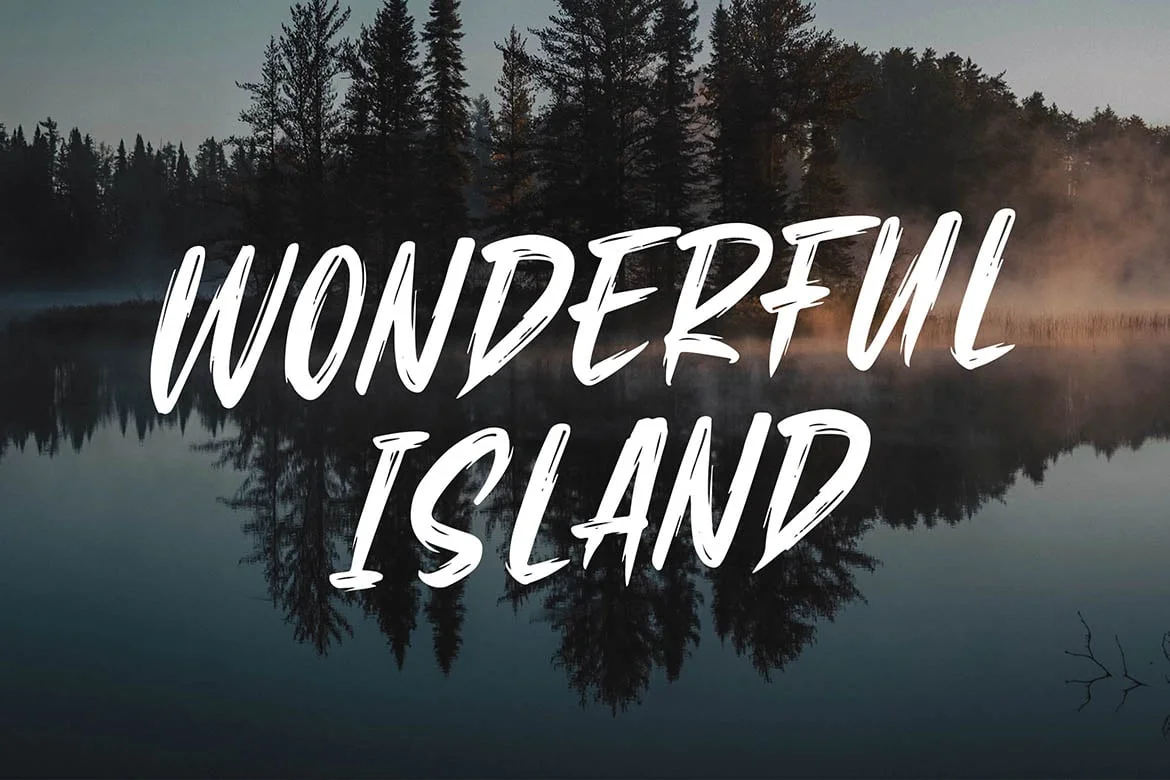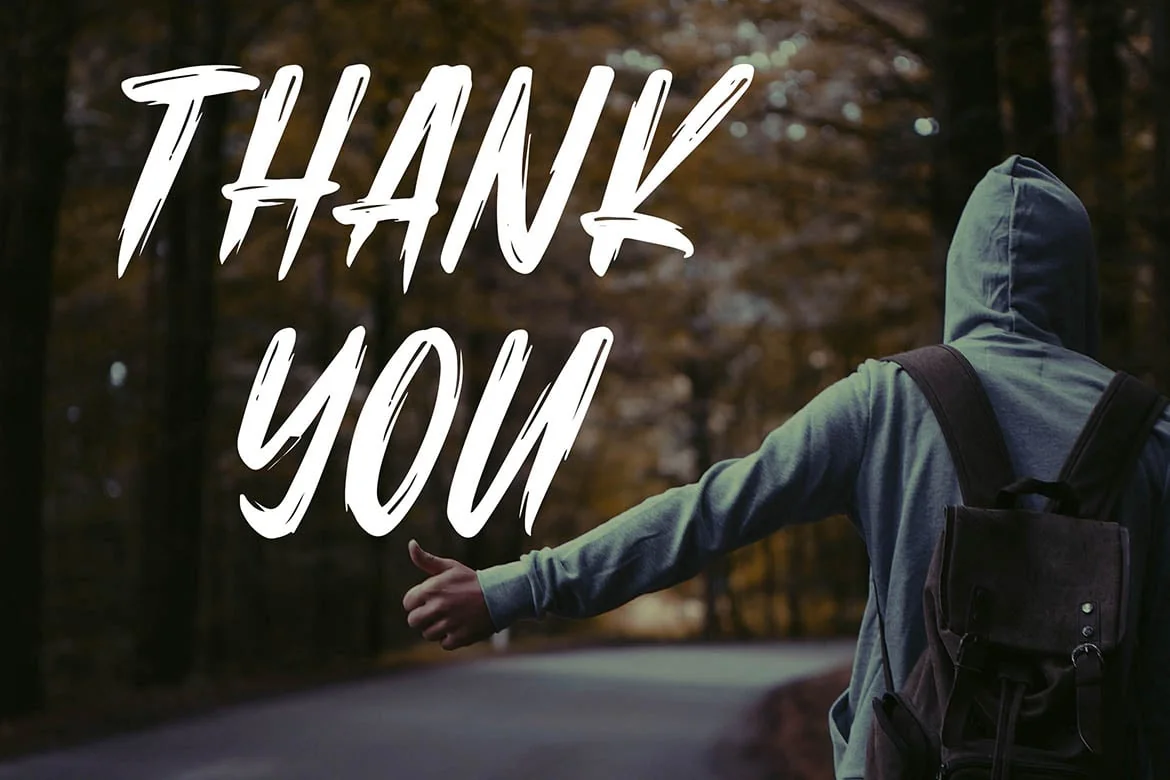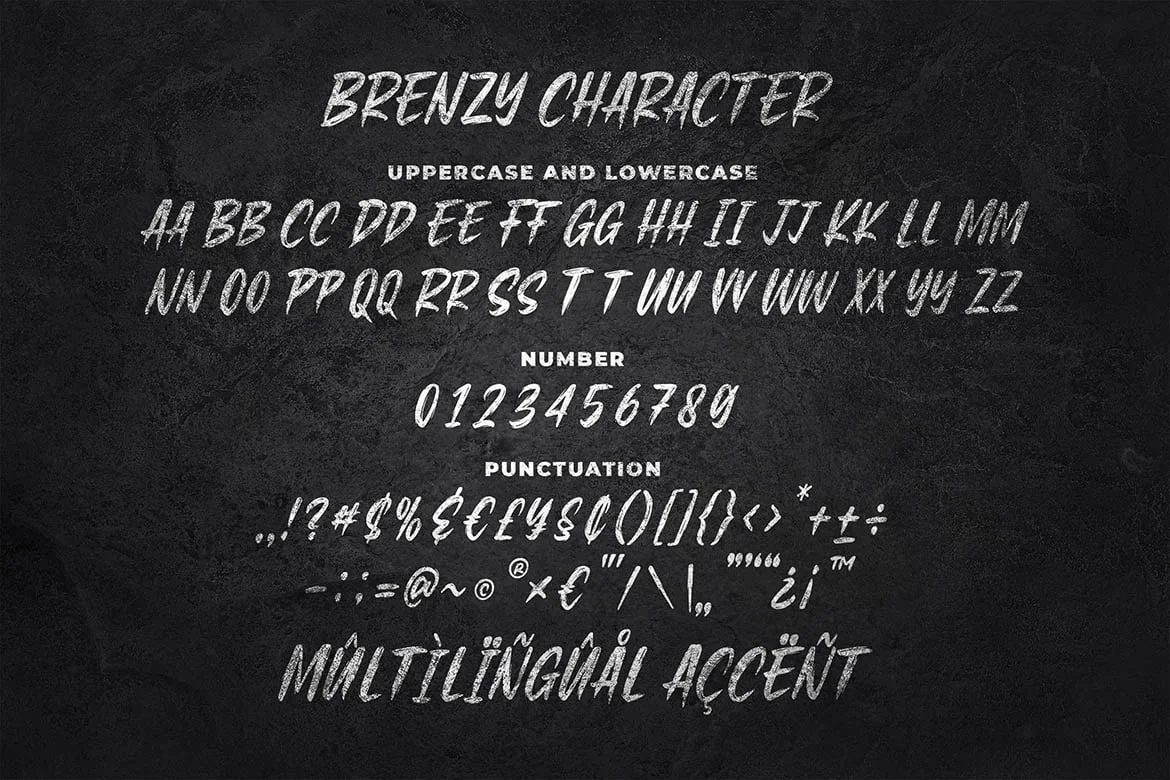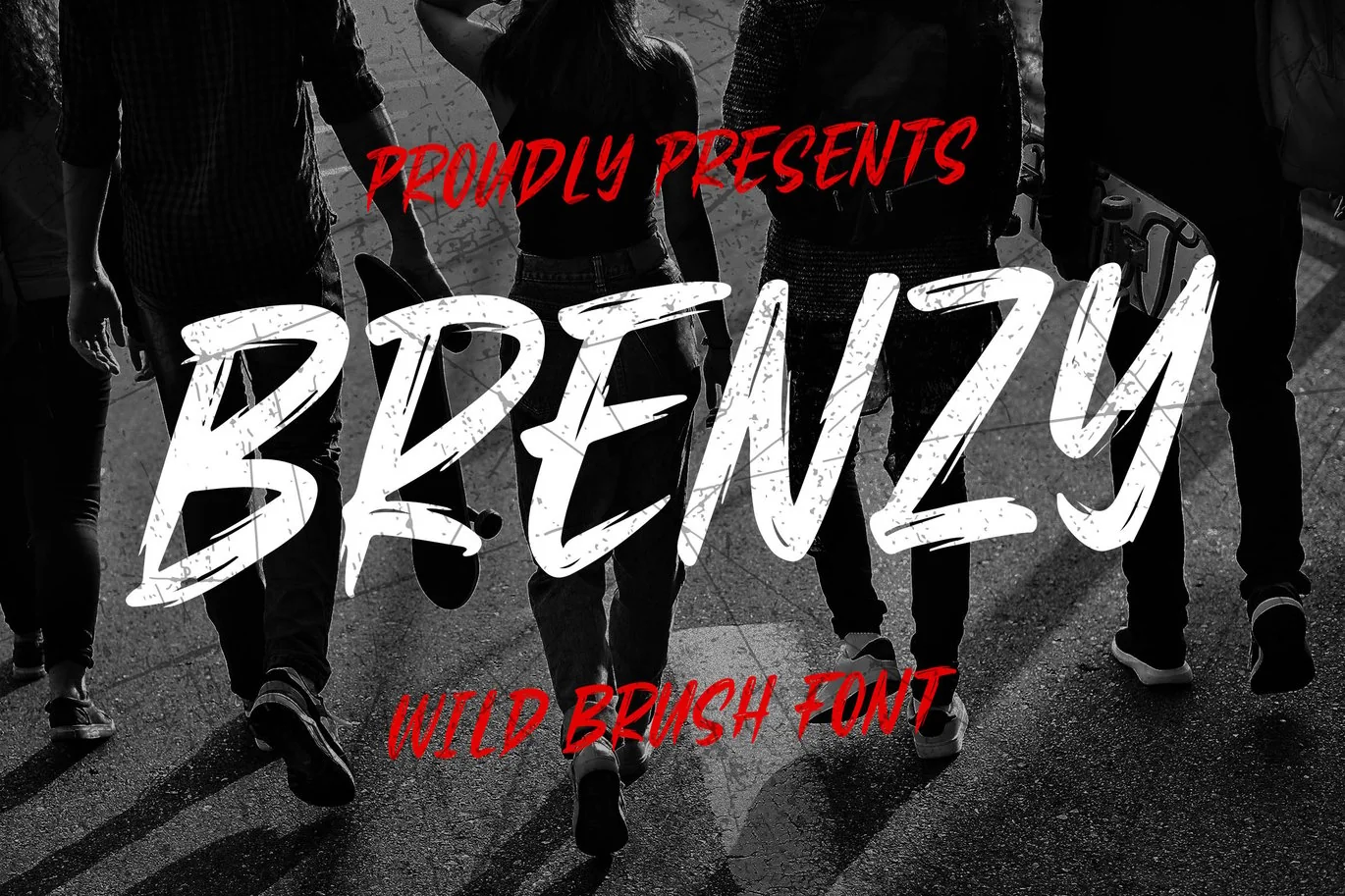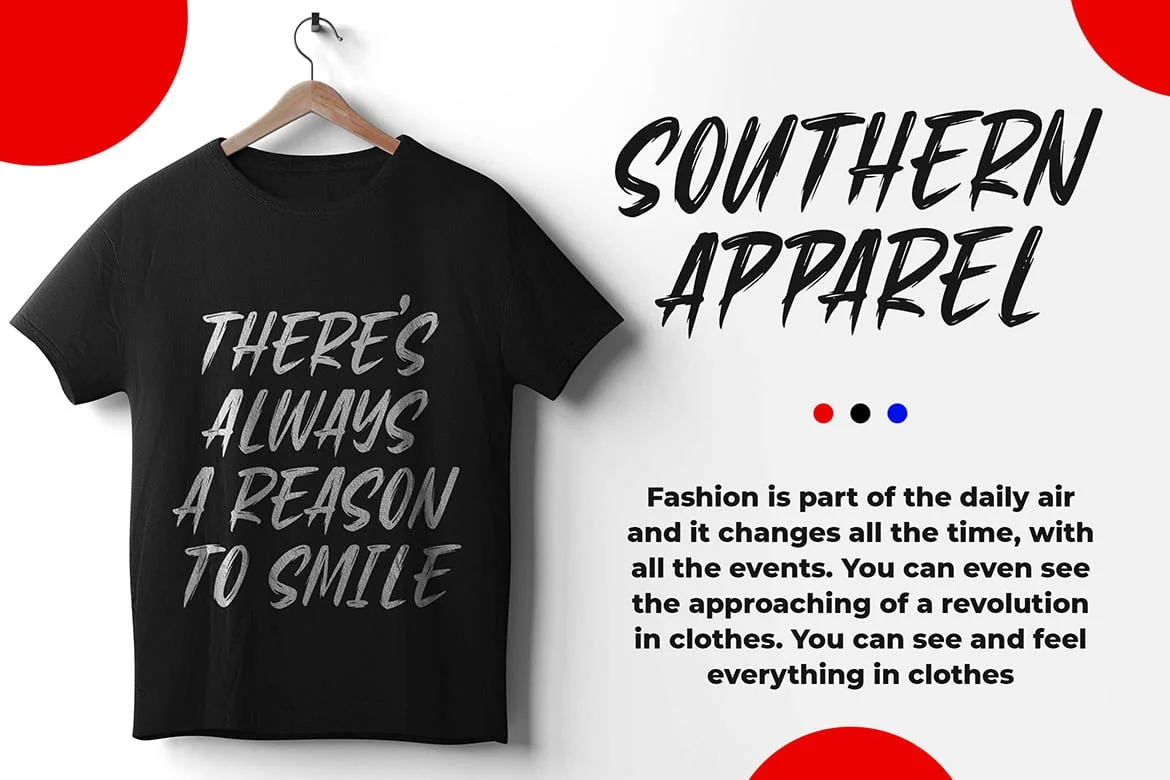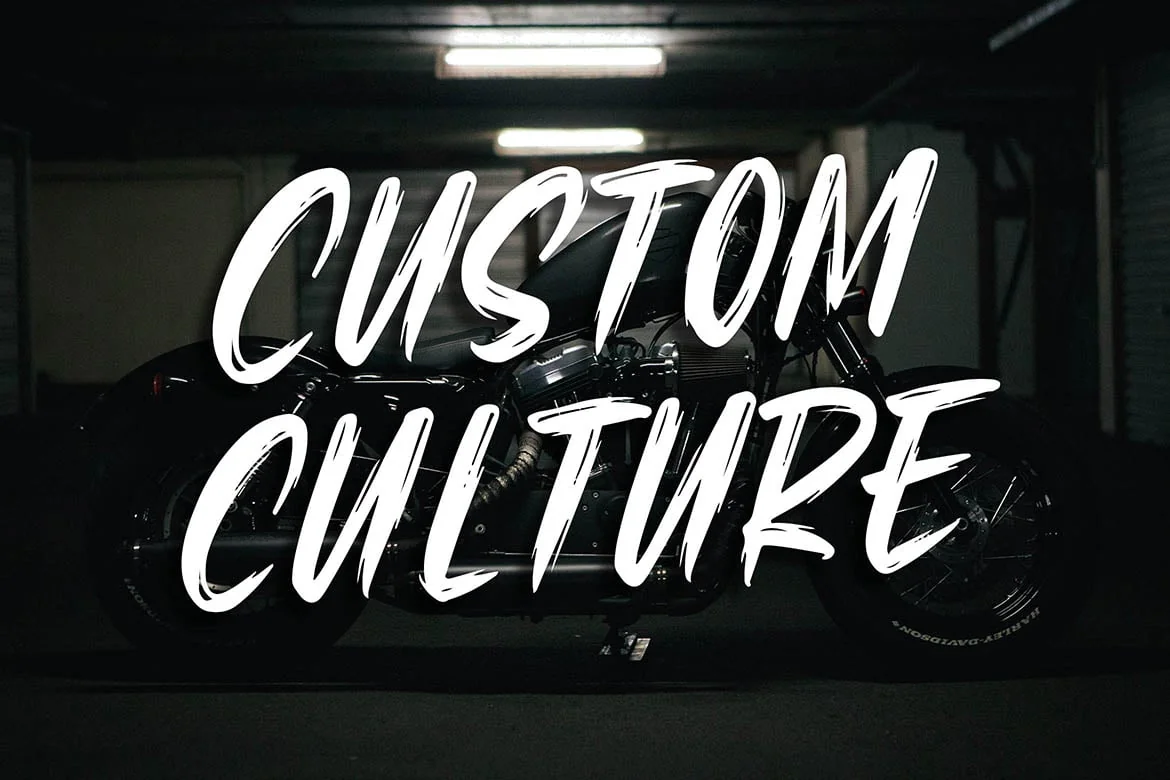
Brenzy – Wild Brush Font
Introducing of our new product the name is Brenzy Wild Brush Font. Brenzy good urban style, logotype, label, badge, headline, signature, packaging and any more.
MULTILINGUAL ACCENT :
ØÆøæ¢ÐŒœÁĂÂÀÄĄÅÃǼĆČÇĈĊĎÉĔĚÊËĖÈĘĞĜĢĠĤÍĬÎÏİÌĮĨĴĶĹĽĻĿŃŇŅÑÓŎÔÖÒŐǾÕŔŘŖŚŠŞŜȘŤŢÚŬÛÜÙŰŲŮŨẂŴẄẀÝŶŸỲŹŽŻáăâäàąåãǽćčçĉċďéĕěêëėèęğĝģġĥíîïìįĩĵķĺľļŀńʼnňņñóŏôöòőǿõŕřŗśšşŝșťţŭûüűùųůũẃŵẅẁýŷÿỳźžż